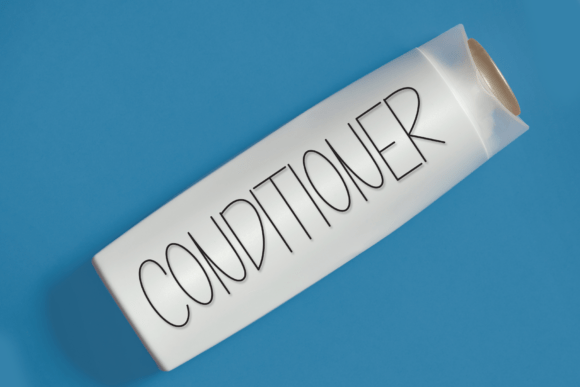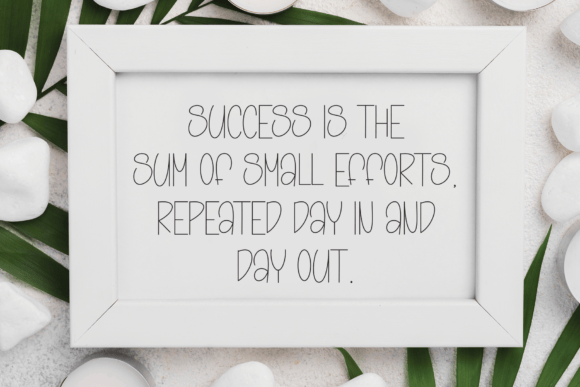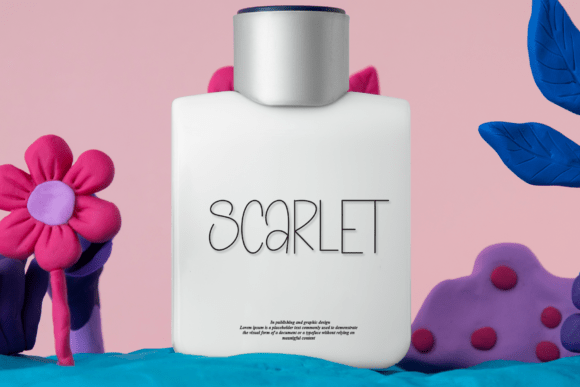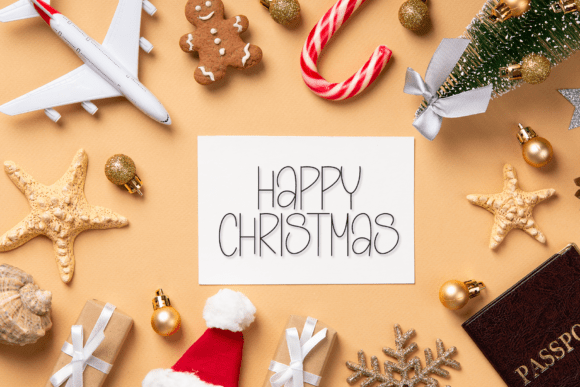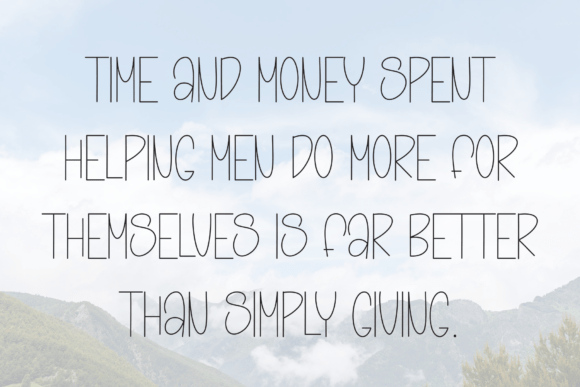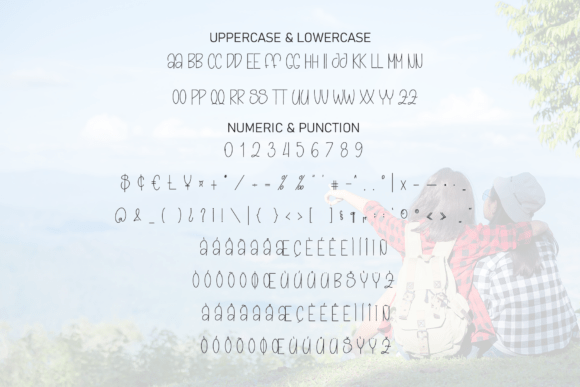
Introduction to Nature Holiday Font
Have you ever stumbled upon that perfect font that makes your design project stand out? For me, it was the moment I discovered the Nature Holiday Font – a hand-scrawled display font that embodies the warmth and charm of the great outdoors. As a designer, I can attest that finding the right font can make all the difference in bringing your creative vision to life.
What sets the Nature Holiday Font apart is its unique ability to evoke a sense of joy and whimsy, making it an ideal choice for a wide range of design projects. Whether you’re crafting a wedding invitation, a mindful card, or any other creative endeavor, this font is sure to add a touch of magic to your design. In this article, we’ll delve into the world of the Nature Holiday Font, exploring its features and benefits, and providing you with valuable insights on how to incorporate it into your next design project.
Key Features of Nature Holiday Font
• Unique Design: The Nature Holiday Font features a beautiful, hand-drawn design with intricate details, perfect for adding a touch of elegance to your creative project.
• Customizable: The Nature Holiday Font is fully editable, allowing you to customize the text to fit your specific design needs.
Honest Review: Nature Holiday Font
As a designer, I’m always on the lookout for high-quality design resources that can elevate my creative projects. Recently, I had the chance to work with the Nature Holiday Font, and I’m excited to share my honest review with you.
• ✨ Unique and creative lettering style that perfectly captures the essence of the holiday season.
• ✨ High-quality design that looks great on a transparent background, making it perfect for holiday-themed graphics and designs.
• ⚠️ Limited character set, which may not be suitable for longer text-based projects.
• ⚠️ Not ideal for use in small font sizes, as the lettering can become blurry.
Overall, I was impressed with the Nature Holiday Font’s unique design and high-quality output. While it may have some limitations, I would still recommend it as a great resource for designers working on holiday-themed projects.
Using in Creative Projects
The Nature Holiday Font is ideal for use in a variety of creative projects, including posters, social media graphics, and website design. You can use it in conjunction with other design elements, such as images and graphics, to create a cohesive and visually appealing look.
The Nature Holiday Font is commonly used in design projects related to travel, nature, and outdoor activities. It’s also a popular choice for holiday-themed designs, such as Christmas and summer vacation graphics.
To get the most out of the Nature Holiday Font, be sure to experiment with different font sizes, colors, and styles. You can also combine it with other design elements, such as images and graphics, to create a unique and eye-catching look.